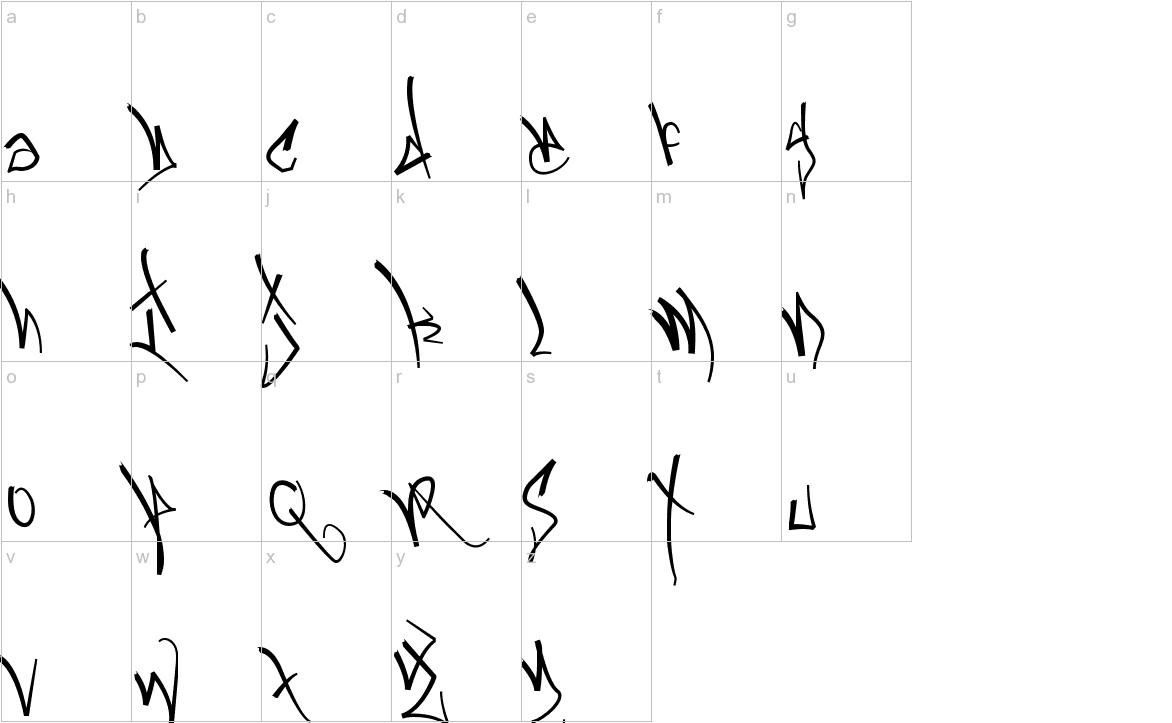
BlackbookOne
A collaboration between Louie Fortay (lootrituals.com) and Michael Muranaka
BlackbookOne is the first in a series of Blackbook Graffiti Fonts. Letters can be arranged and styled for limitless design possibilities, PERFECT for titling, background textures, CD art, etc. Bust out your designs then rock a B Boy stance-